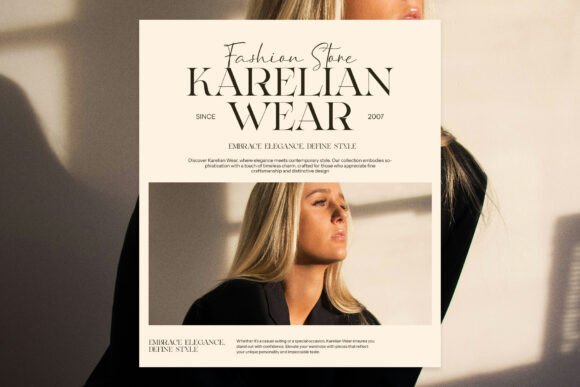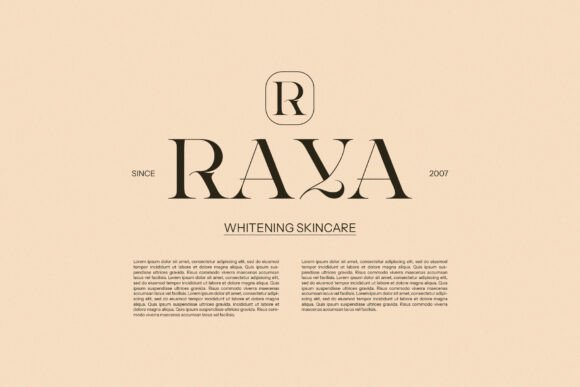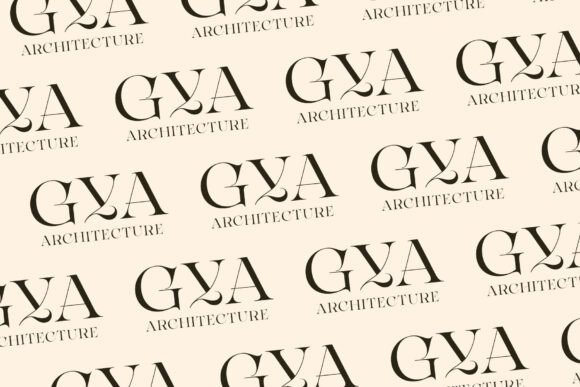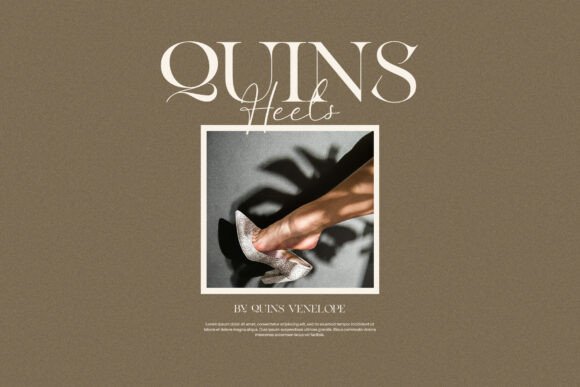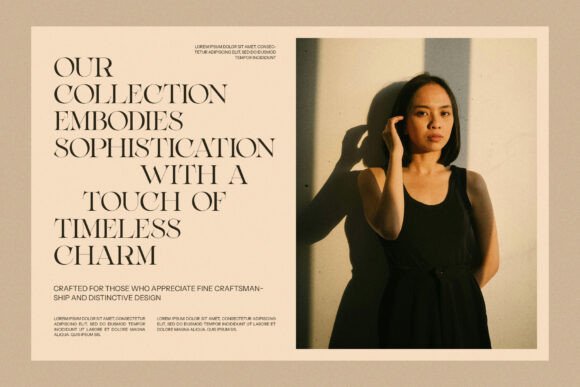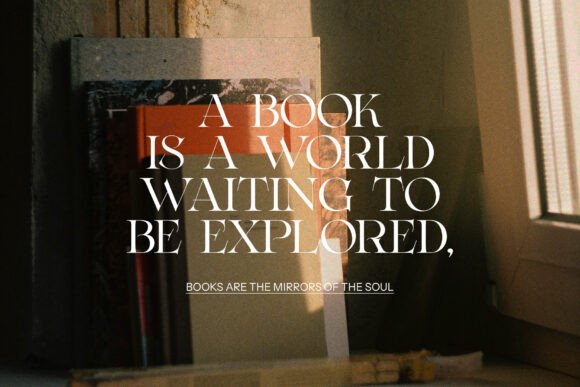
Introduction to Mecro Font
Have you ever been working on a design project, pouring your heart and soul into it, only to find that it’s missing that one special something? Maybe it’s a touch of elegance, a dash of sophistication, or a pinch of vintage charm. Whatever it is, it’s what makes a design truly stand out from the crowd.
For designers, finding the right font can be a game-changer. It’s what sets a design apart and gives it that extra oomph. And when it comes to fonts with a timeless and stylish feel, few options come close to the Mecro Font. This vintage serif font is a design resource like no other, offering a classic, old-fashioned look that’s perfect for posters, logos, and anything that needs a touch of vintage charm.
With its sharp, elegant details and high-quality design, the Mecro Font is a valuable addition to any designer’s toolkit. Whether you’re working on a creative project that requires a specific aesthetic or just want to add some extra flair to your design, this font is sure to deliver. And the best part? It’s available for free download, making it a must-have for any designer looking to elevate their designs.
Key Features of Mecro Font
- High-quality design resource with a transparent background, ideal for creative projects that require a sleek and modern look.
- Comes in a single size, making it versatile and easy to use in various design contexts.
- Features a high-resolution design (up to 1024 x 1024 pixels), ensuring crisp and clear text rendering even at large sizes.
- Designed to be highly legible, making it perfect for body text, headings, and titles in creative projects.
- Supports a wide range of languages, making it a great choice for multilingual design projects.
Honest Review: Mecro Font
I recently stumbled upon the Mecro Font while searching for a high-quality, free download for my latest creative project. I was immediately drawn to its sleek and modern design, perfect for any design resource looking to add a touch of sophistication.
One of the things that works well for the Mecro Font is its versatility. It comes in a range of weights and styles, making it easy to use for both body text and headings. The font also has a clean and minimalist aesthetic, making it perfect for designs that require a transparent background or a lot of negative space.
- ✨ Versatile and easy to use
One limitation of the Mecro Font is that it may not be suitable for projects that require a lot of bold or dramatic typography. The font’s minimalist aesthetic can make it feel a bit too subtle for some designs.
Overall, I was impressed with the Mecro Font and would definitely recommend it to designers looking for a high-quality, free download. Its versatility and clean design make it a great addition to any design resource.
Mecro Font
Mecro Font is a versatile design resource that can be used in a variety of creative projects. With a transparent background, it’s easy to integrate into any design. For a high-quality experience, download the Mecro Font for free and start creating.
Mecro Font is commonly used in graphic design, digital art, and creative writing projects. It’s a great resource for anyone looking to add a unique touch to their work.